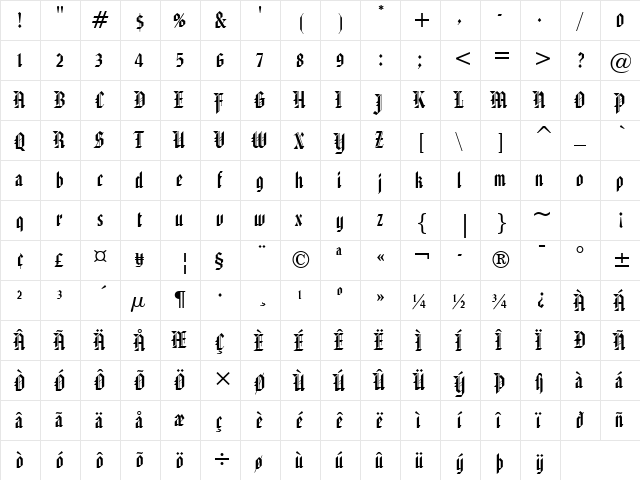
AmericanText BT Regular
Design Context for AmericanText BT Typeface
AmericanText BT takes a measured approach to typography — its balanced proportions and neutral character make it a reliable workhorse for both digital and print work.